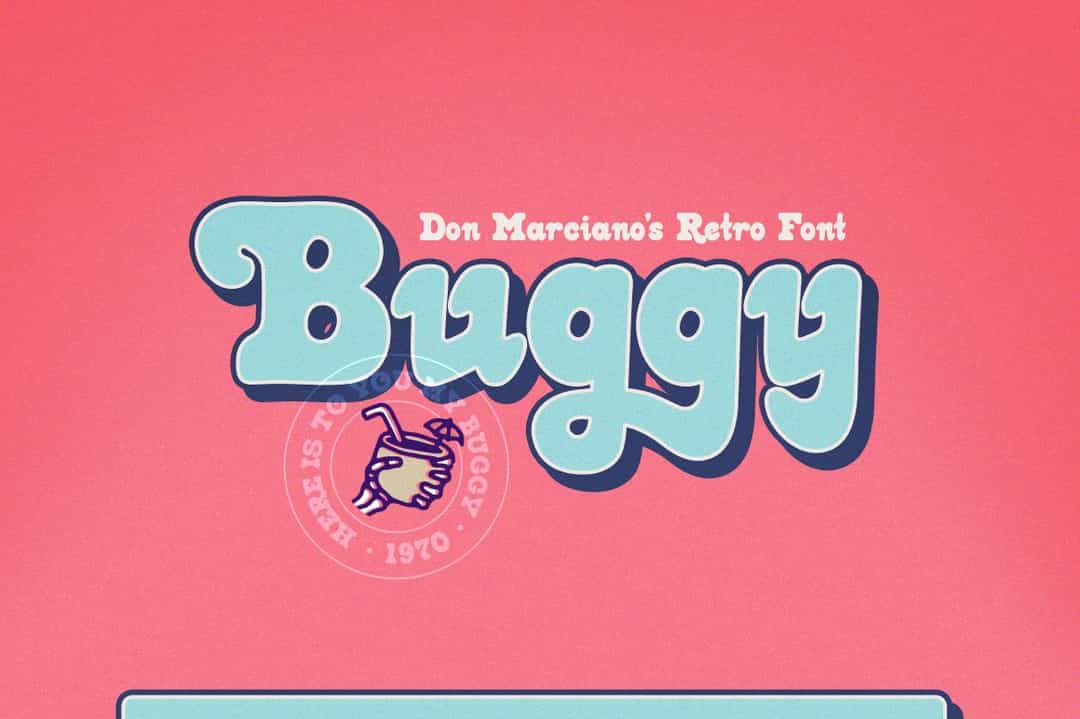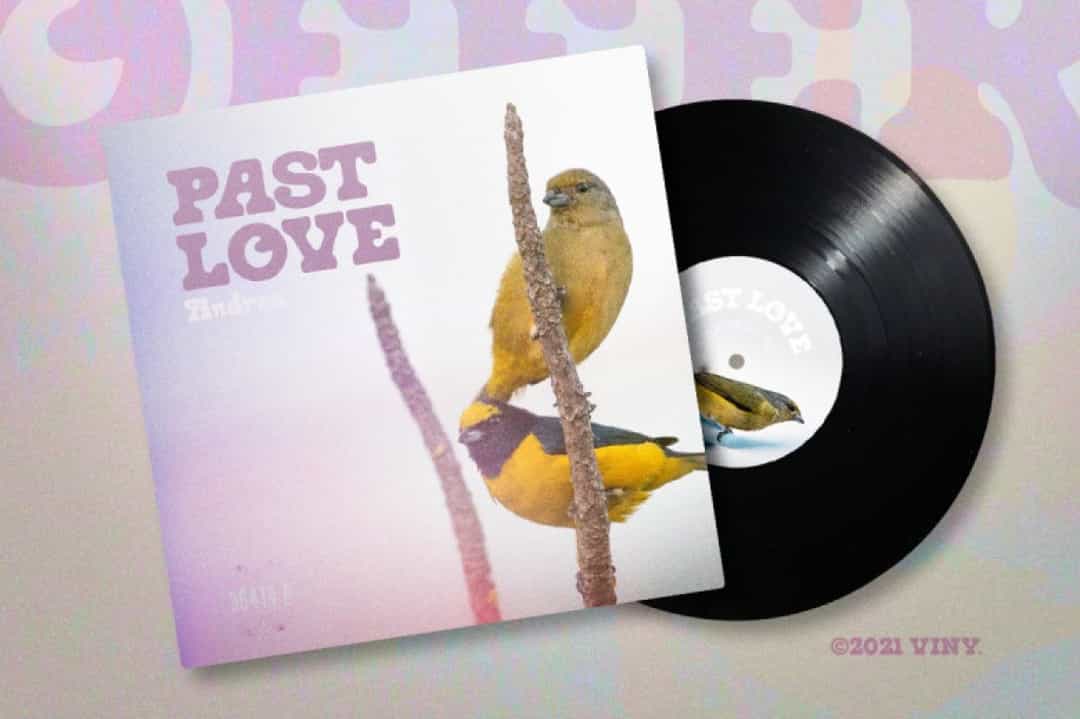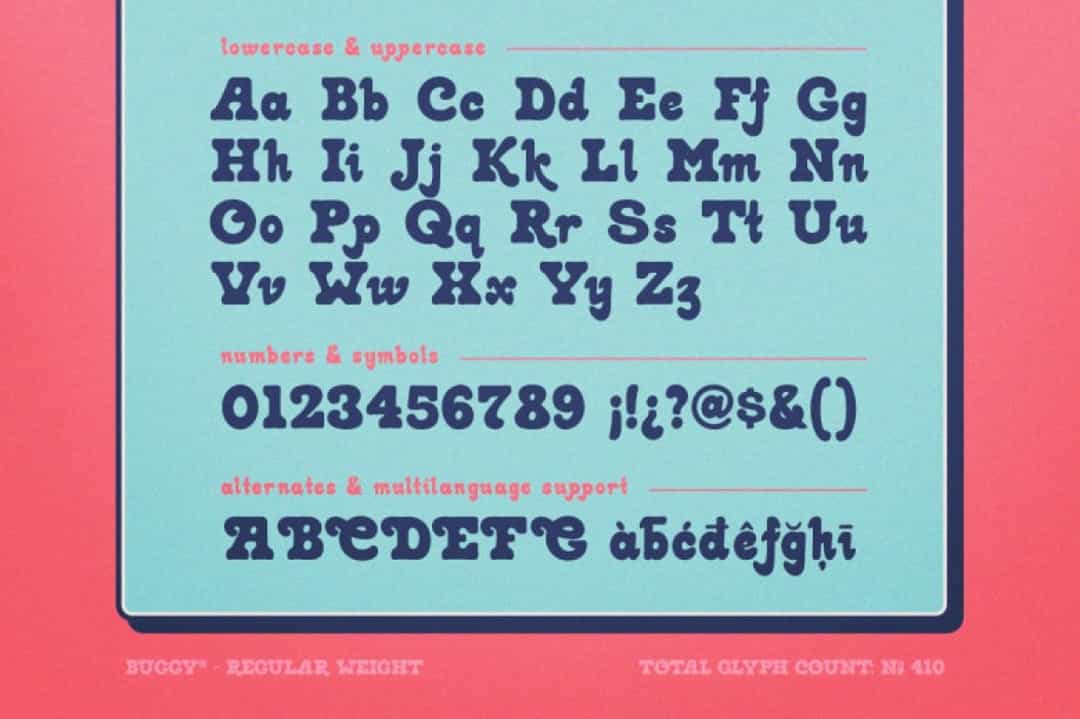
Buggy is an impressive typeface inspired by the 1960s-to-80s style. It contains both uppercase (including uppercase alternative characters ) and lowercase alphabet characters and all of the usual punctuation marks and punctuation points.